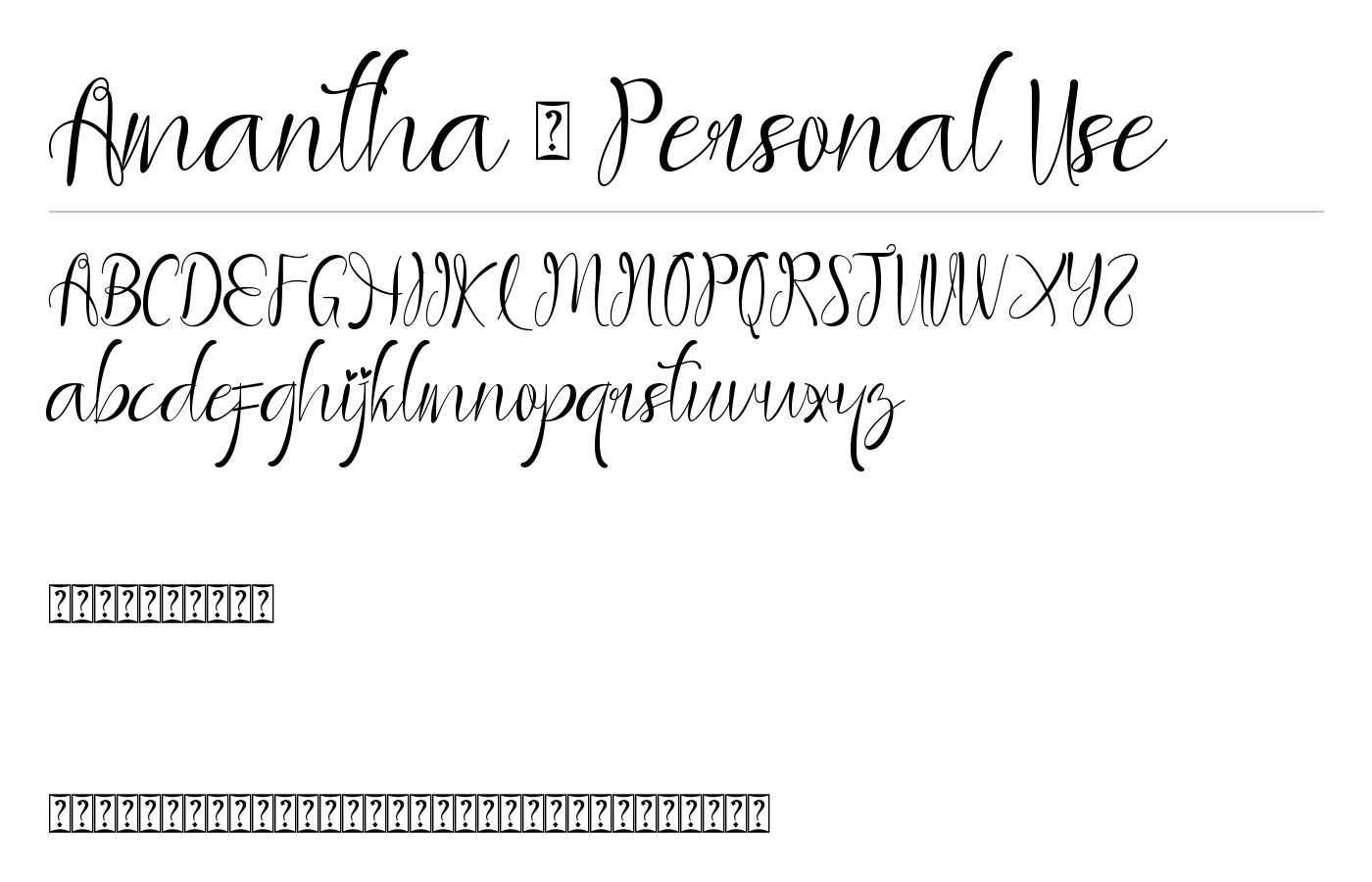
Amantha is a delicate and elegant script font characterized by its thin, flowing strokes and playful, hand-drawn feel. Its tall, narrow letterforms with graceful swashes and unique details, like heart-shaped dots on the i and j, give it a charming and personal touch, perfect for creative projects that need a warm and approachable style. This font works beautifully for invitations, branding, and any design that wants to convey a stylish, feminine, and whimsical vibe.
Amantha Font
About Amantha Font
| Font family | Amantha Font |
| Designer | Yoga Letter 2020 (Isroni Yoga Prasetya) |